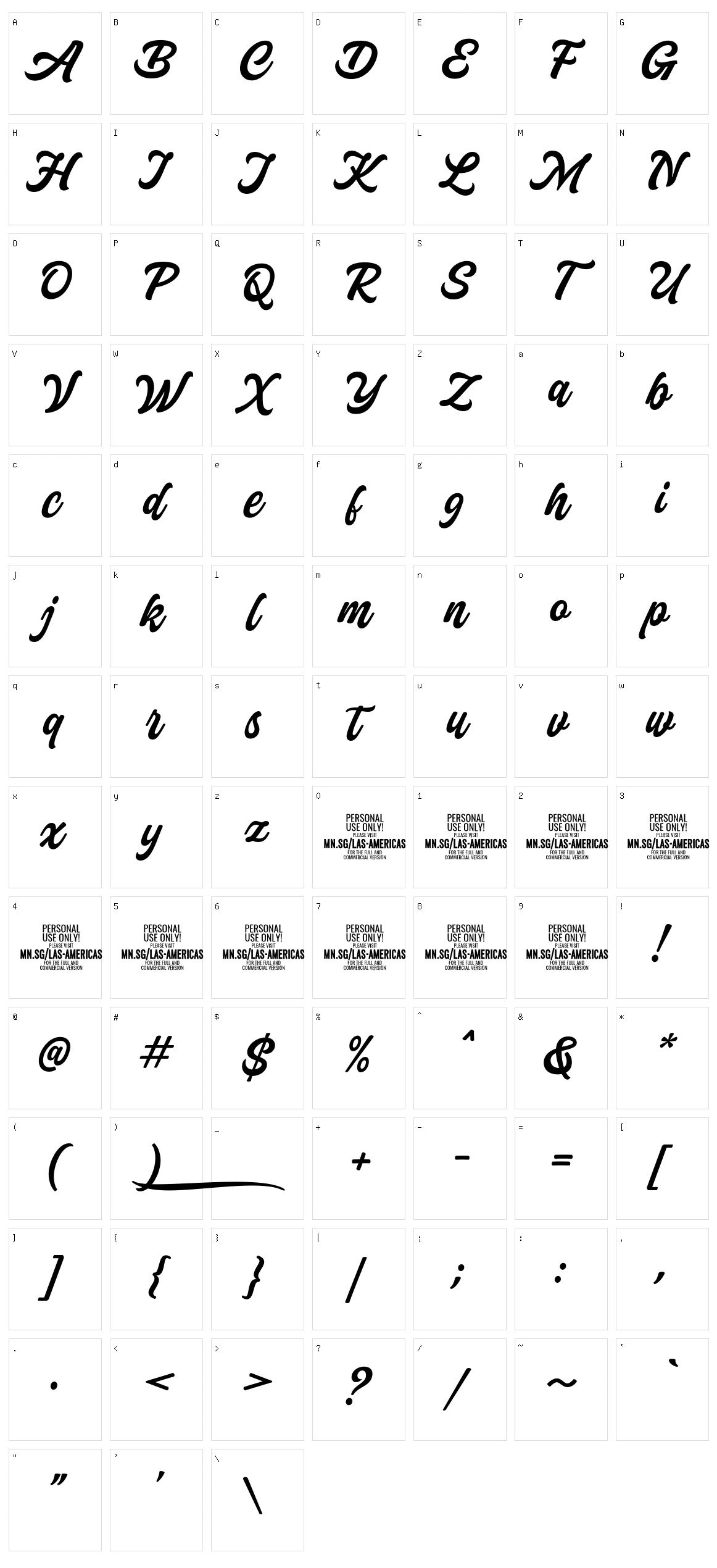
Las Americas is a bold script typeface that embodies the vibrant spirit of Latin American streets.
Las Americas is designed to be the centerpiece of any visual communication. Its heavy, bold strokes convey a sense of confidence and impact, making it ideal for logotypes and headlines. The font's flow mimics rhythmic music, gracefully dancing across the page like a paintbrush in motion. This quality lends the typeface an artistic, handcrafted feel, reminiscent of the letters you'd see on murals and festive banners.
Use one or multiple underscores _ anywhere in the word to create a swash.
Examples: Amer_icana Oce___anic
The font is built with advanced OpenType functionality and guaranteed top-notch quality, containing stylistic and contextual alternates, ligatures and more automatic and manual features; all to give you full control and customizability.
Designed by Mans Greback, 'Las Americas' is more than a font; it's a celebration of culture, art, and music. Its robust yet fluid design makes it an excellent choice for creative projects that require a touch of the unique and a nod to the culturally rich and diverse Latin American continent.